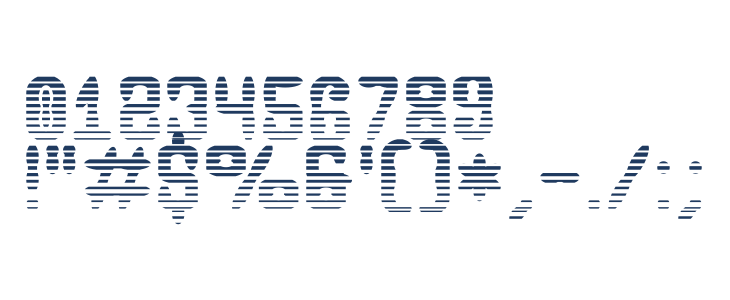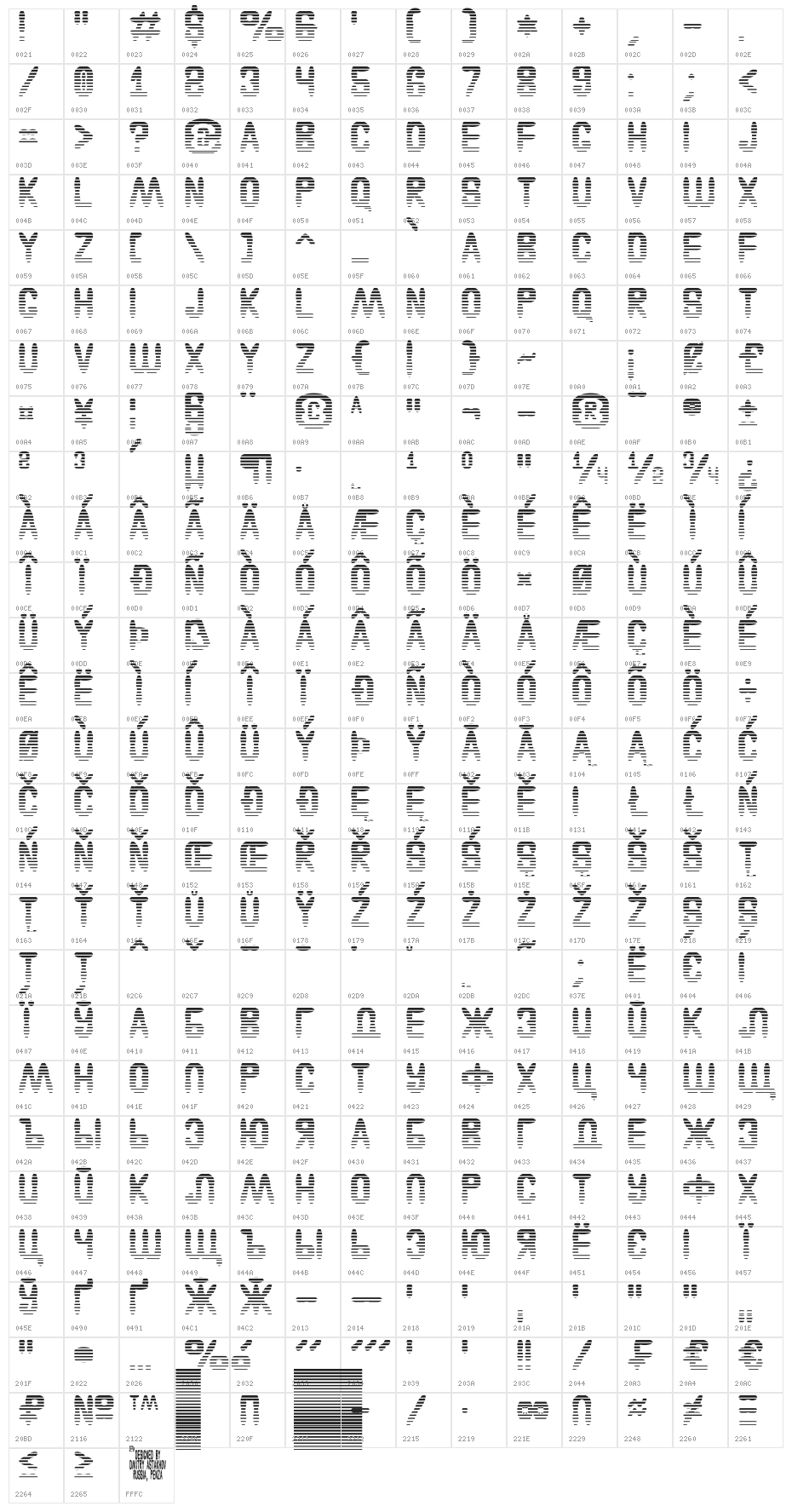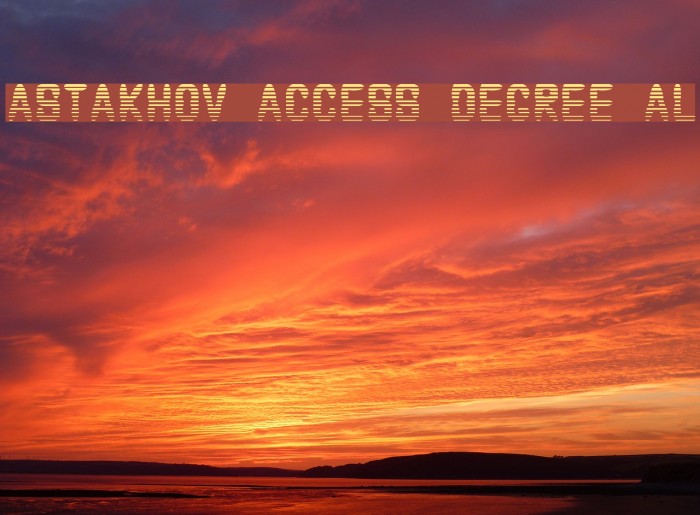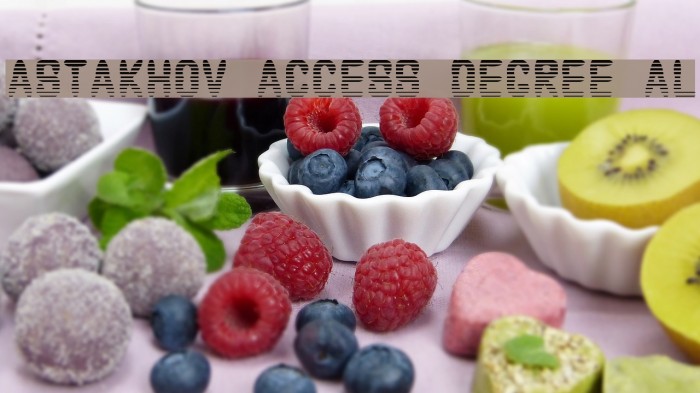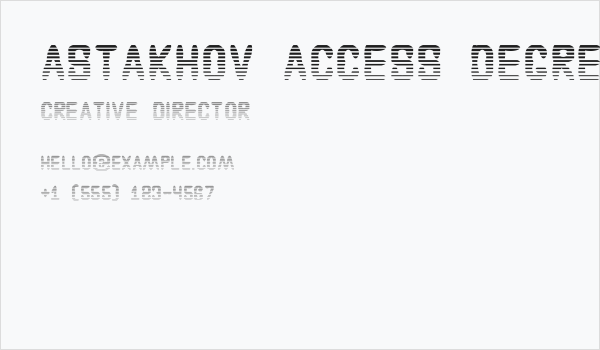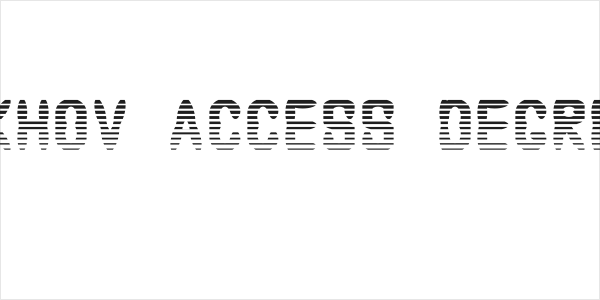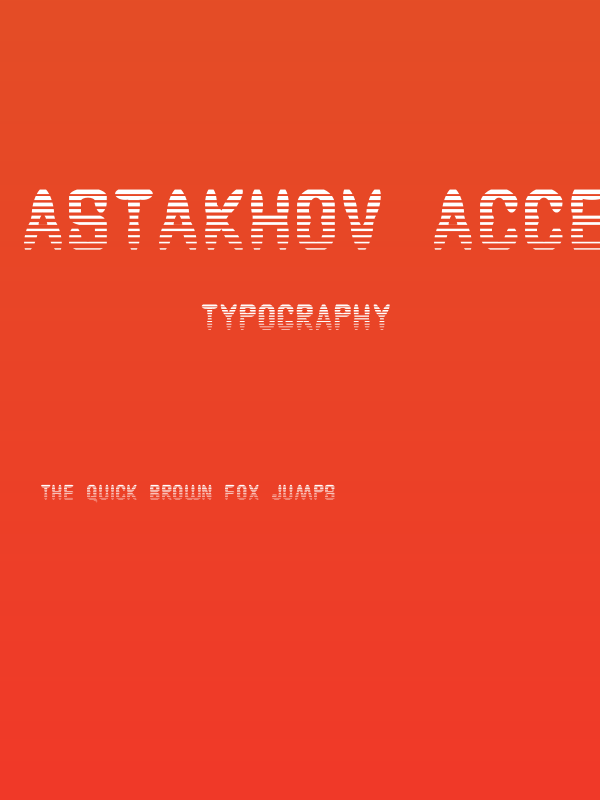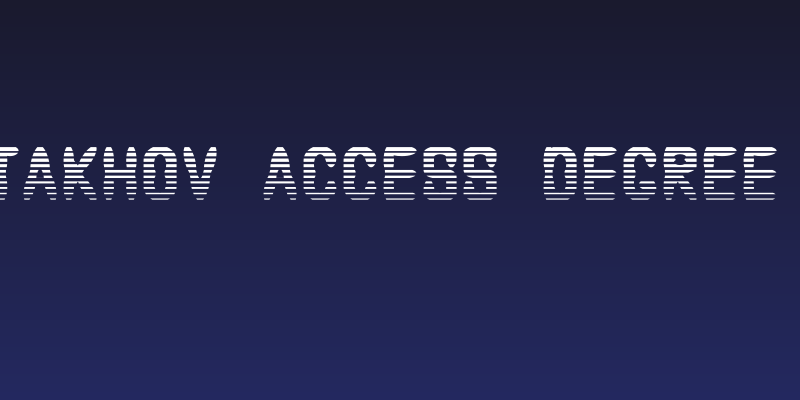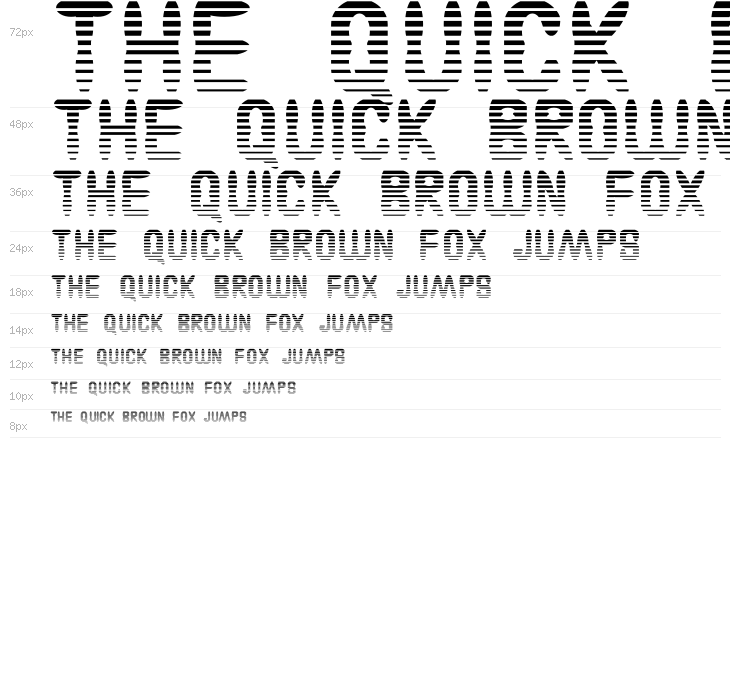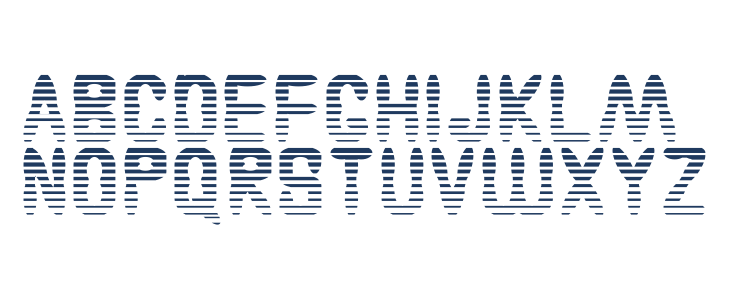
Astakhov Access Degree AL Font
Astakhov Access Degree AL Description
This font features a distinctive, modern design with a striped pattern running horizontally through each character. The uppercase and lowercase letters, as well as numbers and special characters, are constructed with bold, geometric shapes that are partially filled with horizontal lines, creating a unique visual effect. The font's style is both futuristic and industrial, making it stand out in any design. The characters are evenly spaced, and the overall appearance is clean and structured, yet dynamic due to the striped pattern.
Proposed ProjectsIdeal for branding, posters, and digital media where a modern and eye-catching design is desired.